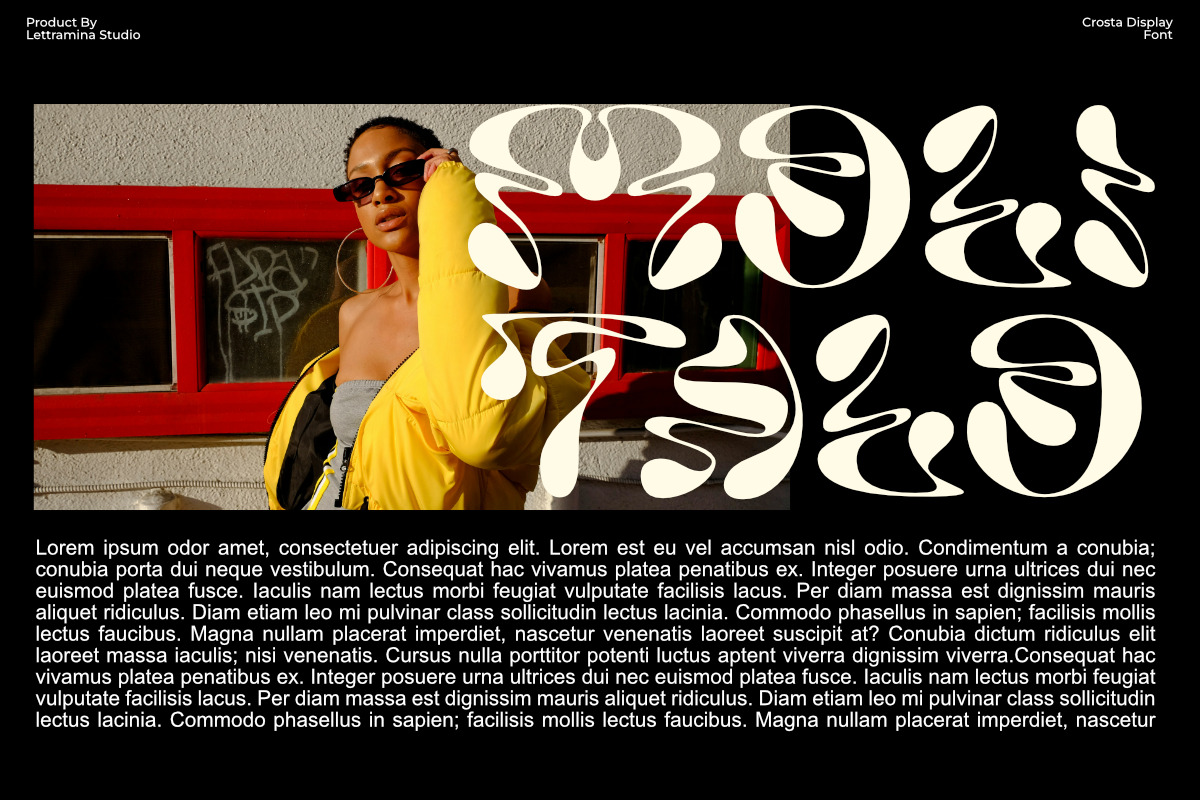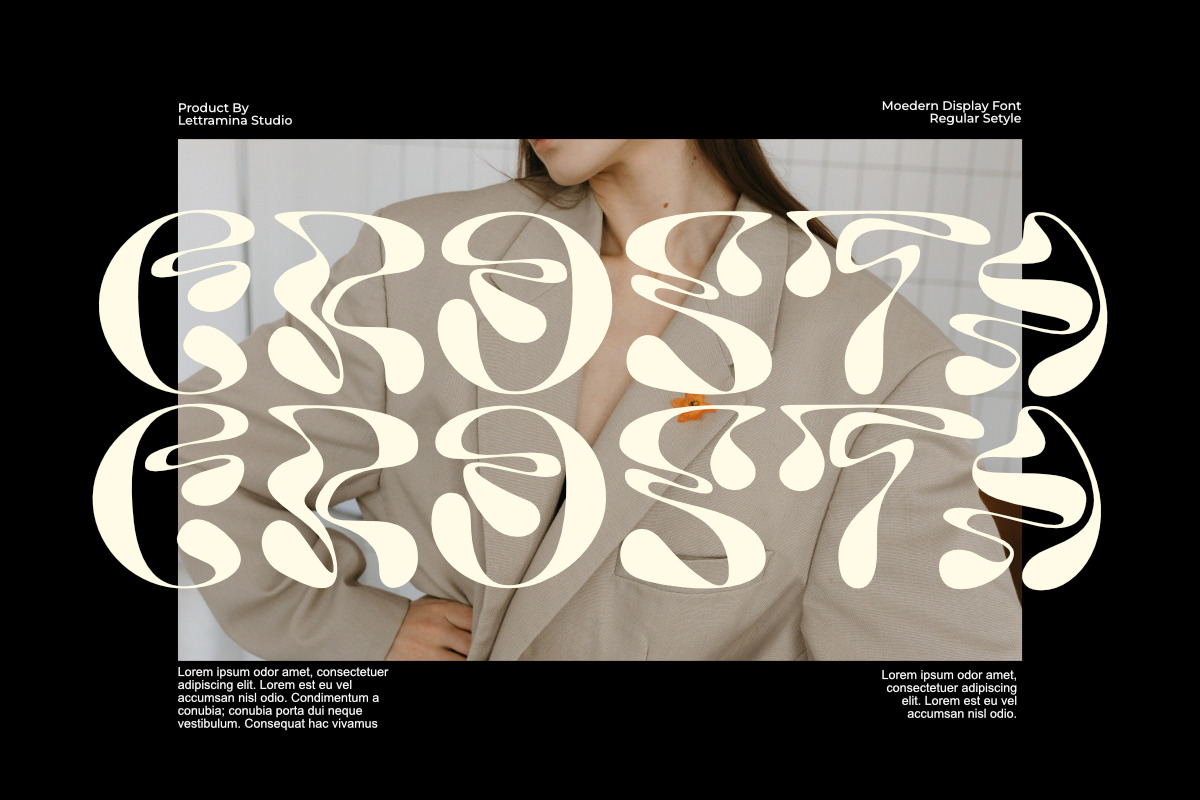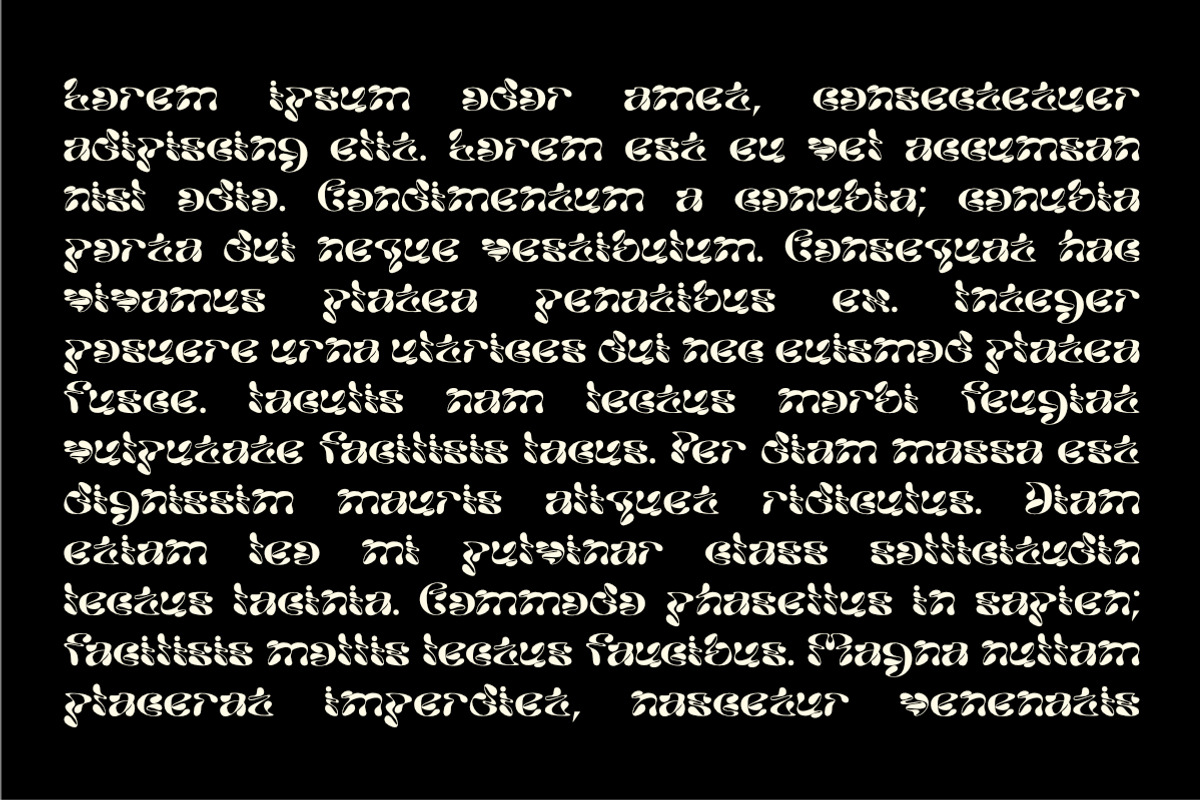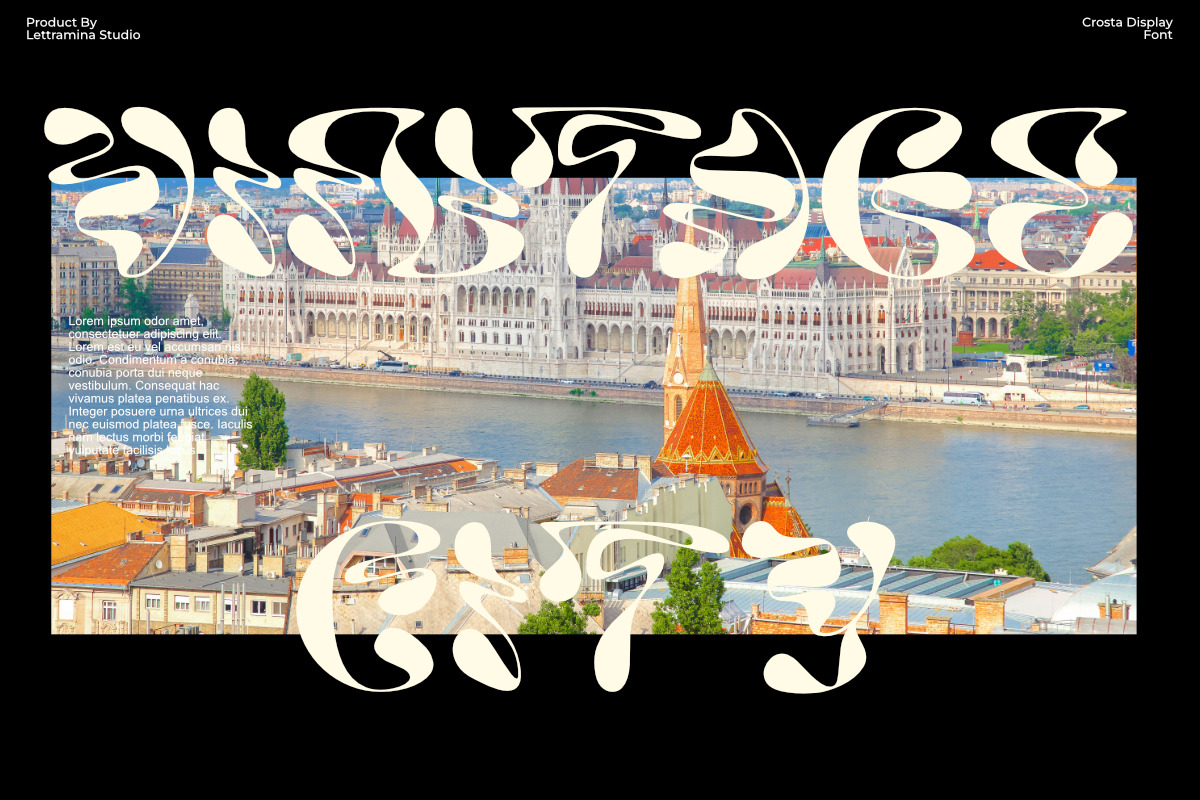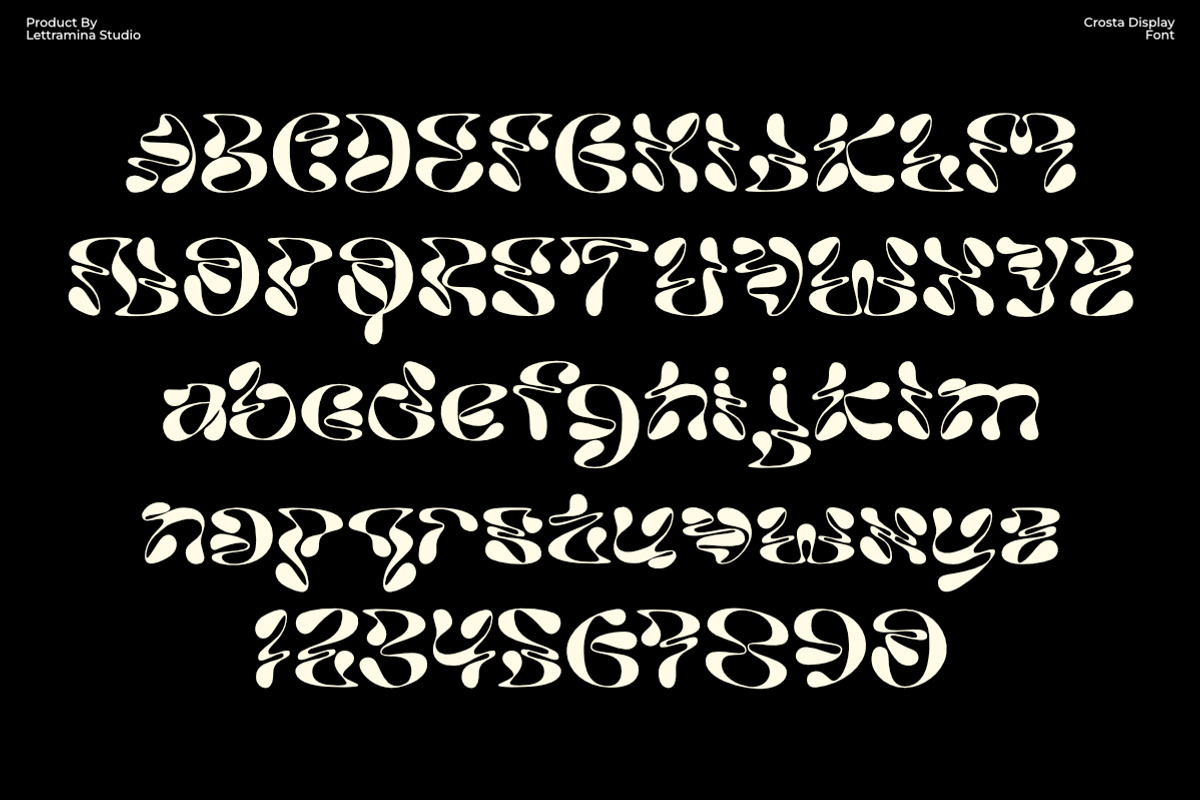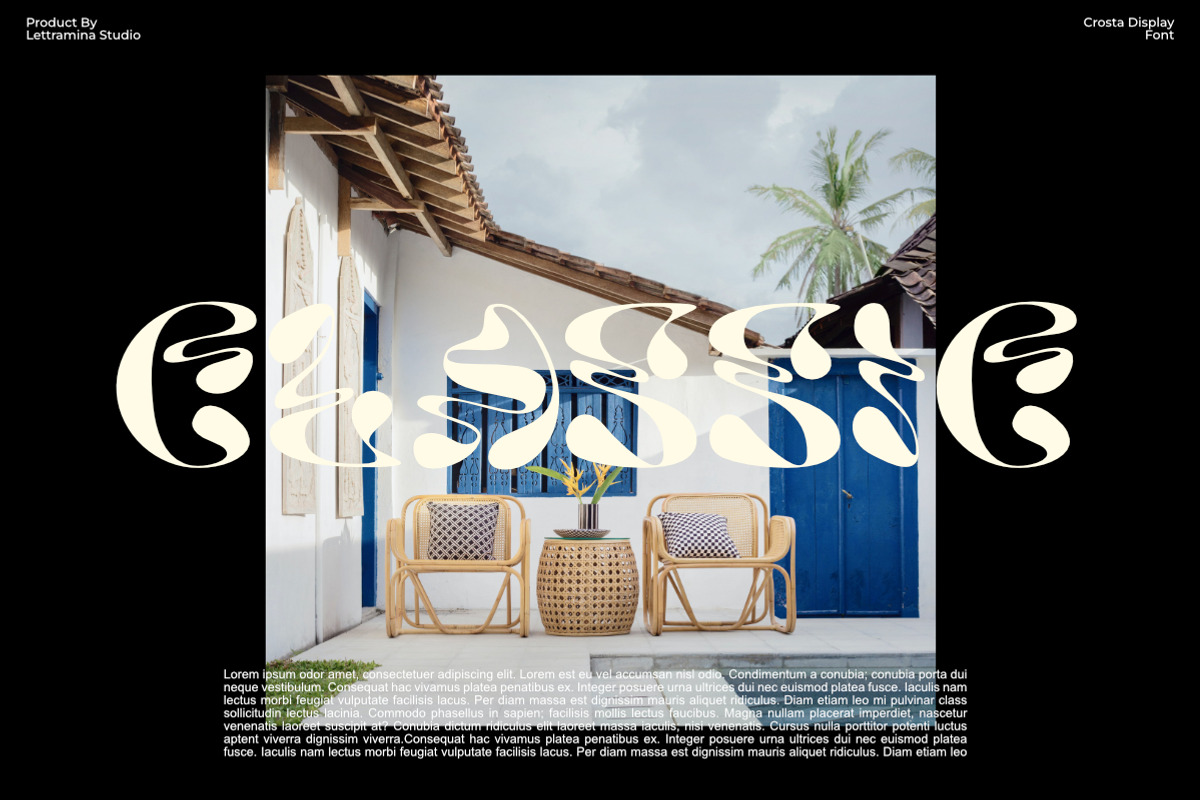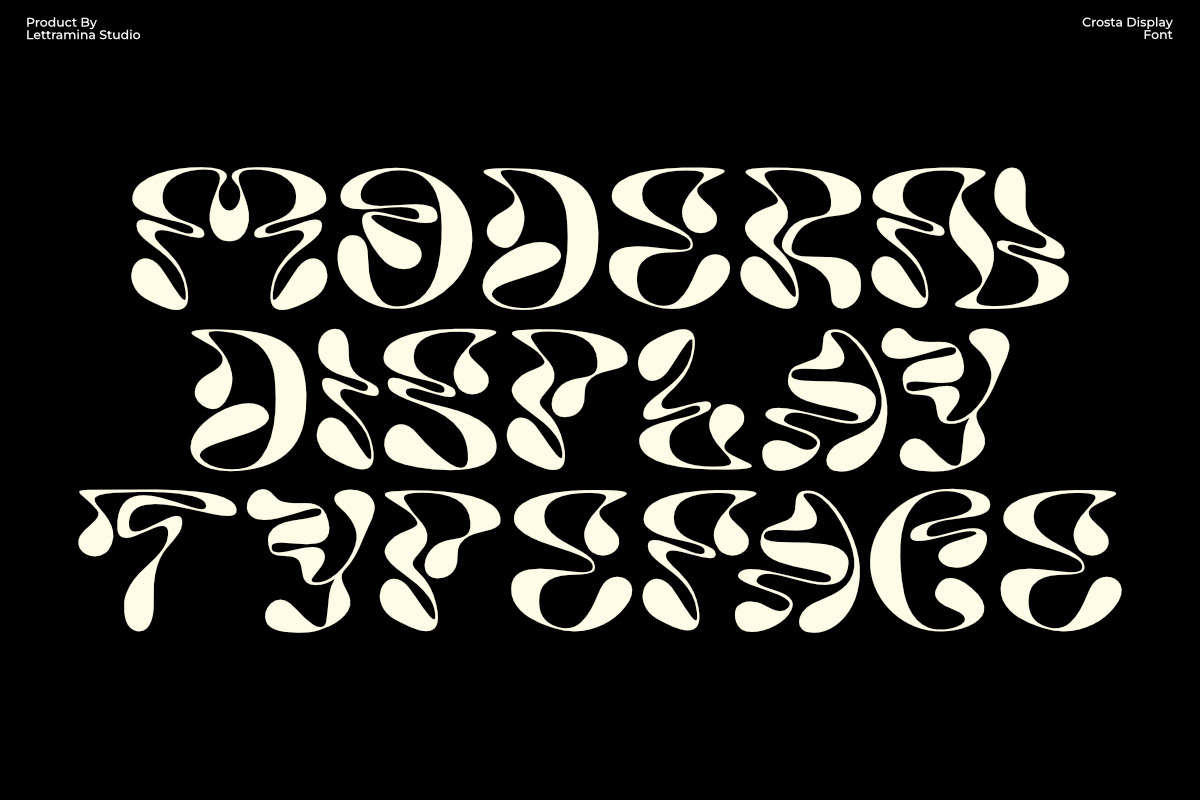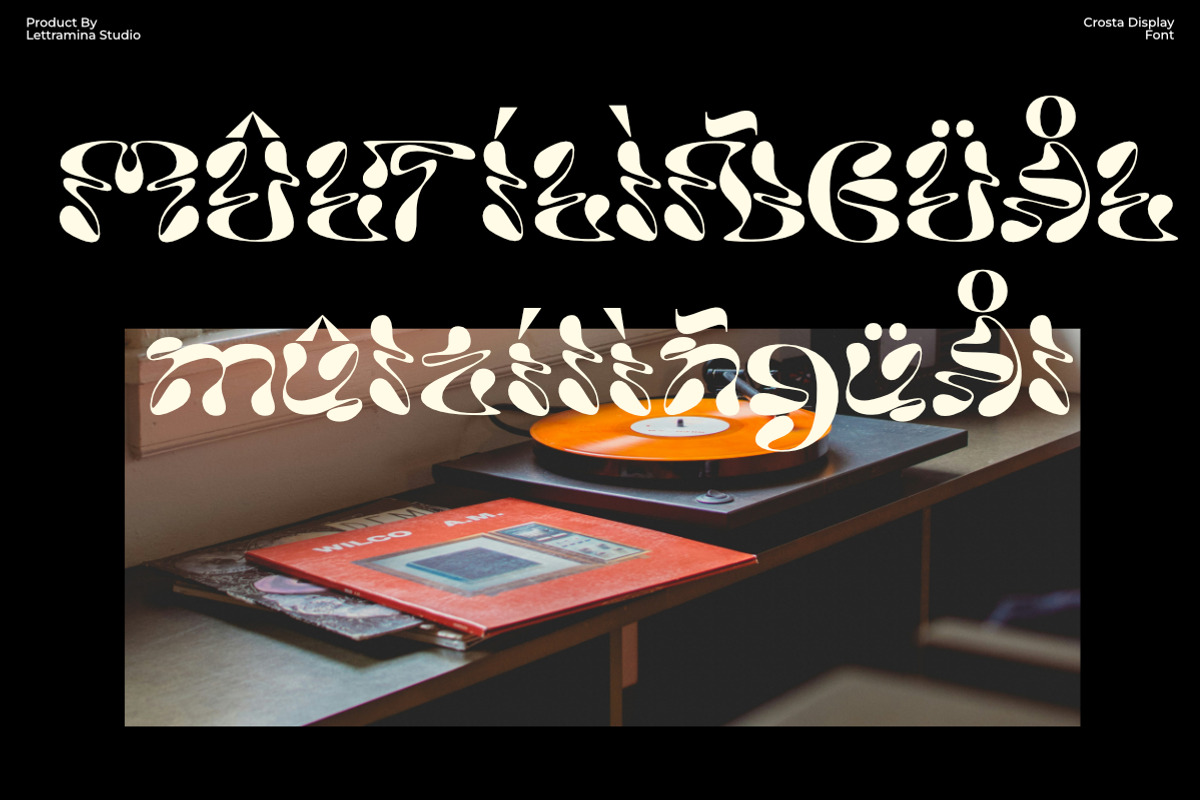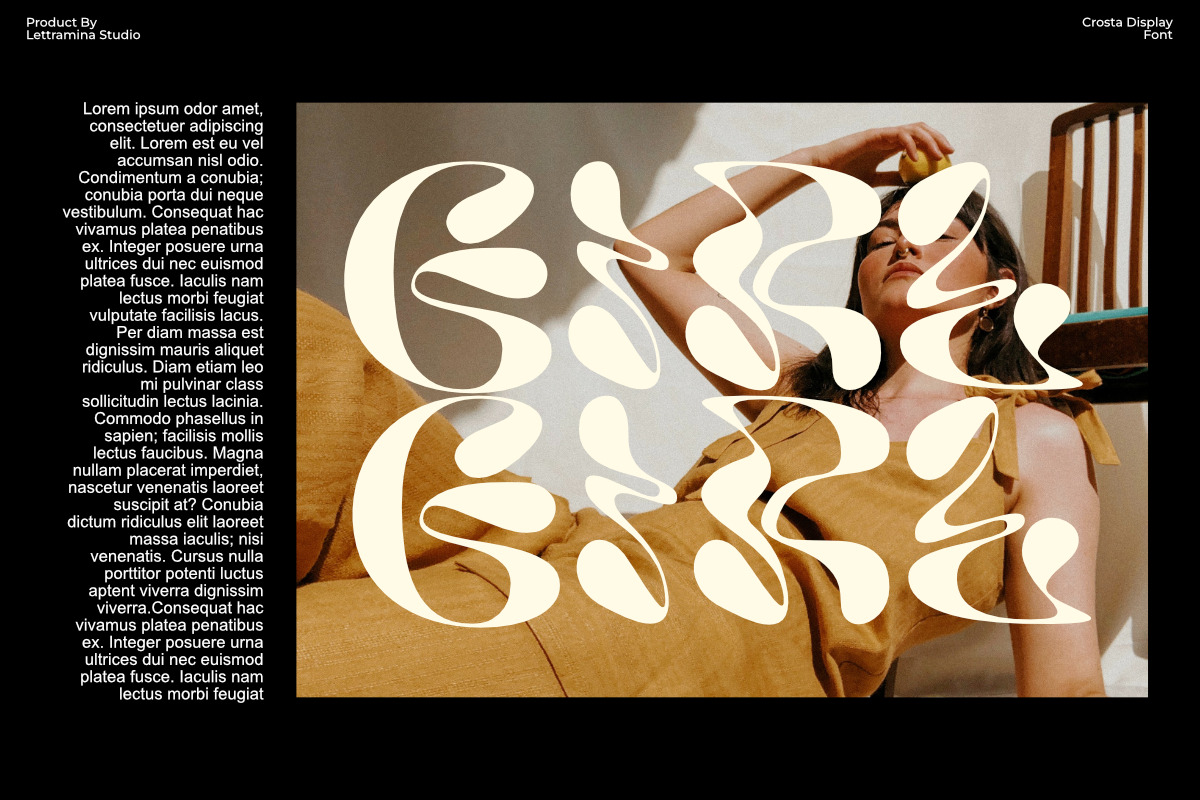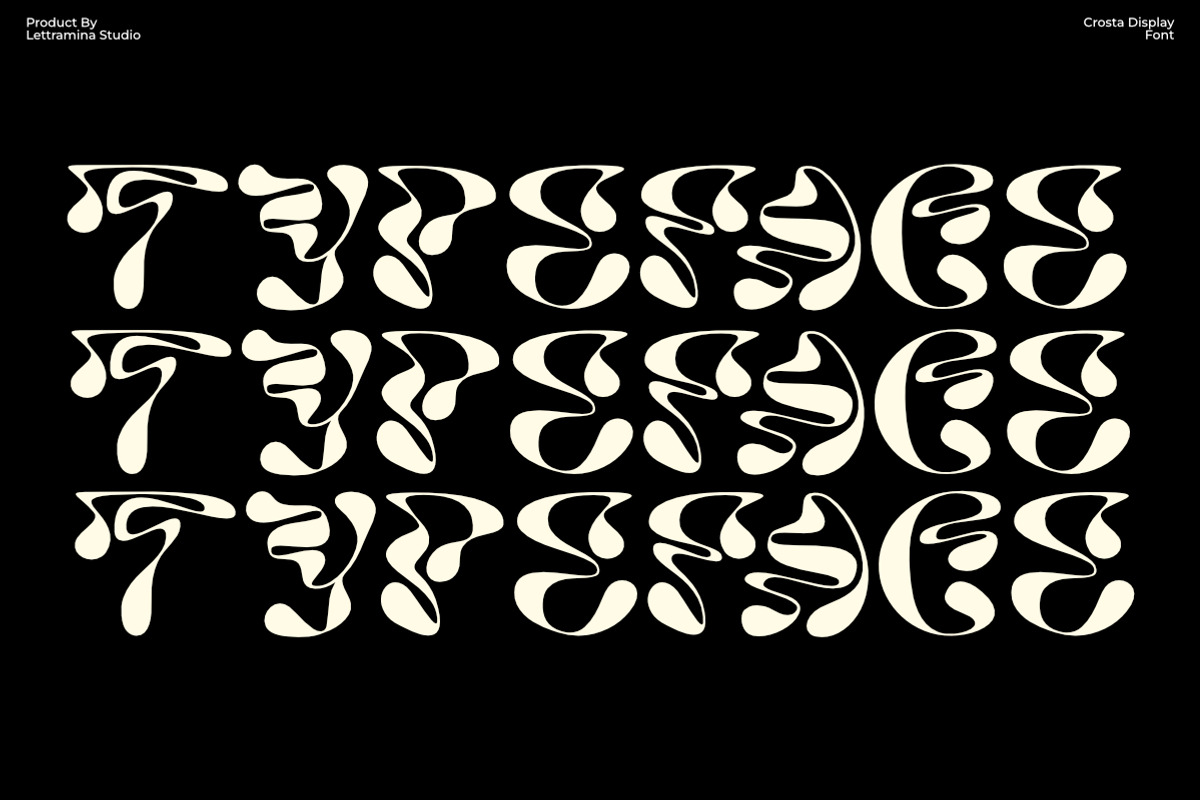
Crosta - Display Typeface
Crosta is an experimental display typeface that stands out with its abstract cuts, organic shapes, and fragmented curves. Each character is crafted like an artistic slice, forming a bold and futuristic visual language.
This font is best suited for creative projects such as posters, album covers, alternative branding, fashion editorials, or digital art. Crosta is not intended for long-form readability but shines when used in short, impactful text and bold typographic statements.
With its unconventional and expressive style, Crosta is perfect for designers seeking a daring, artistic, and distinctive typographic voice.
Features: Uppercase & lowercase Multilingual support Alternates & ligatures Punctuation & symbols